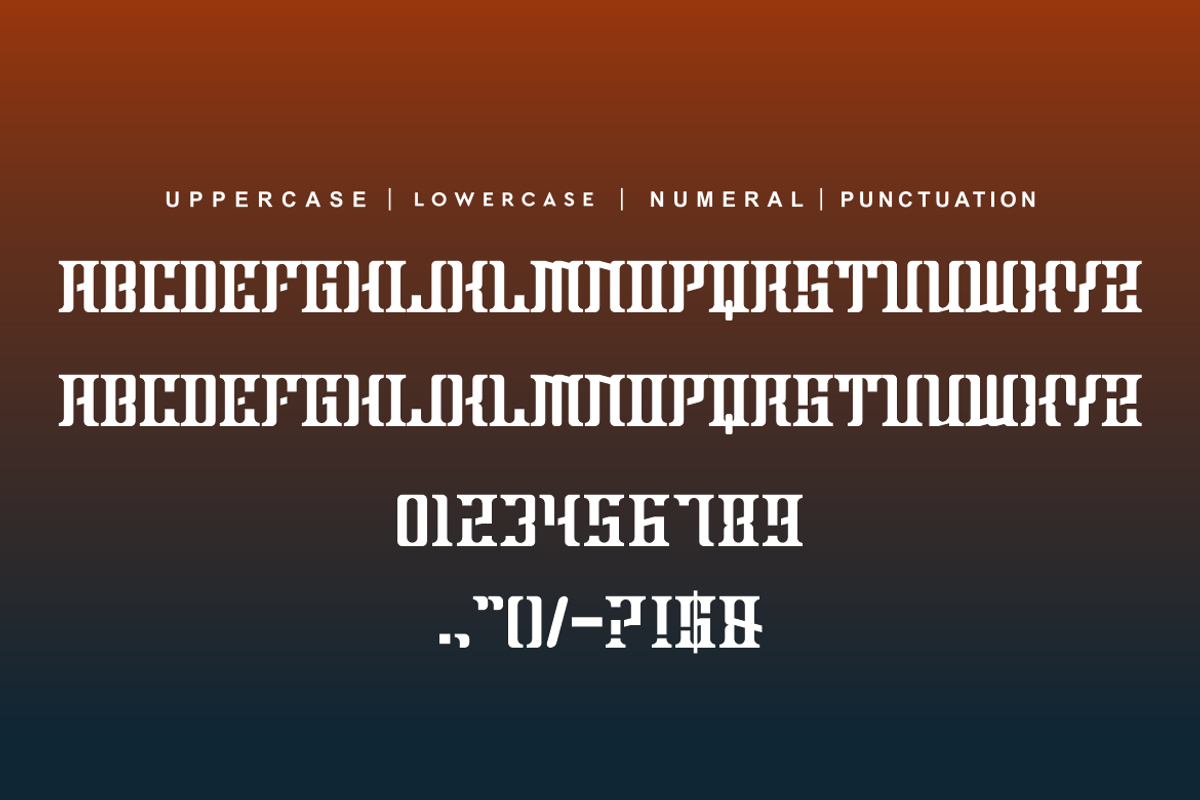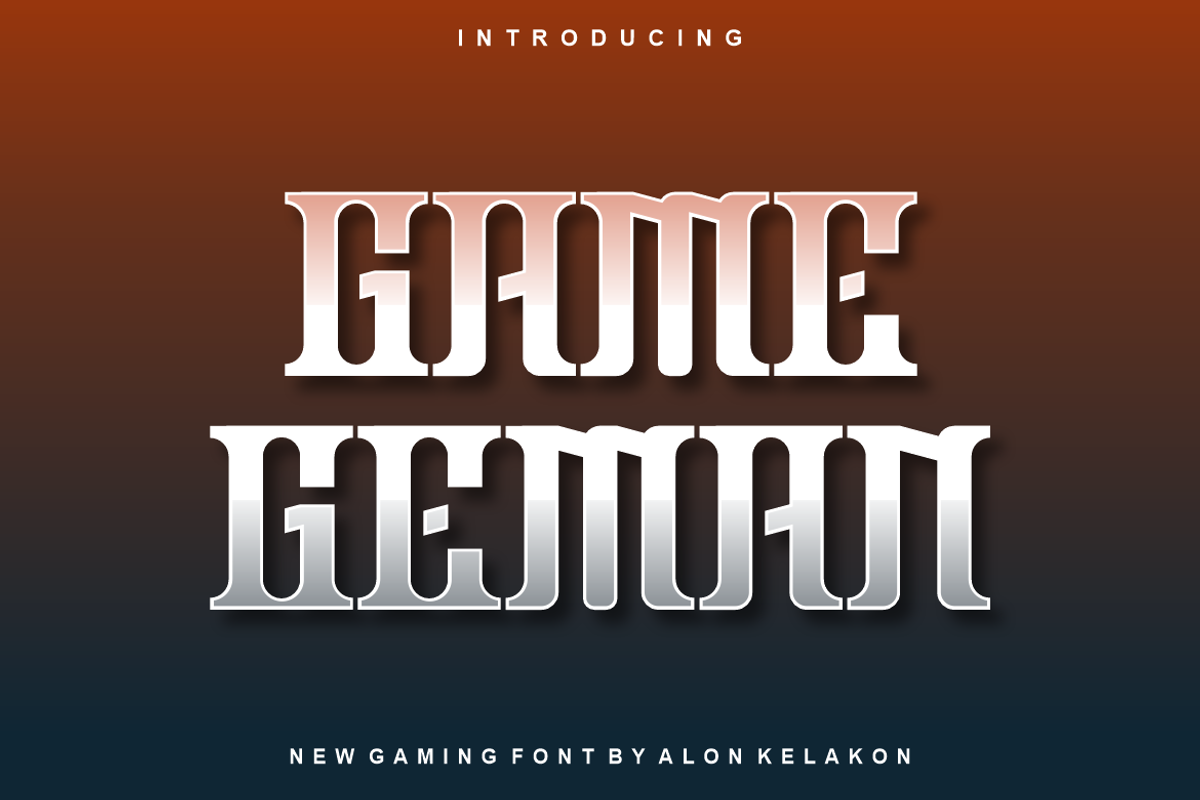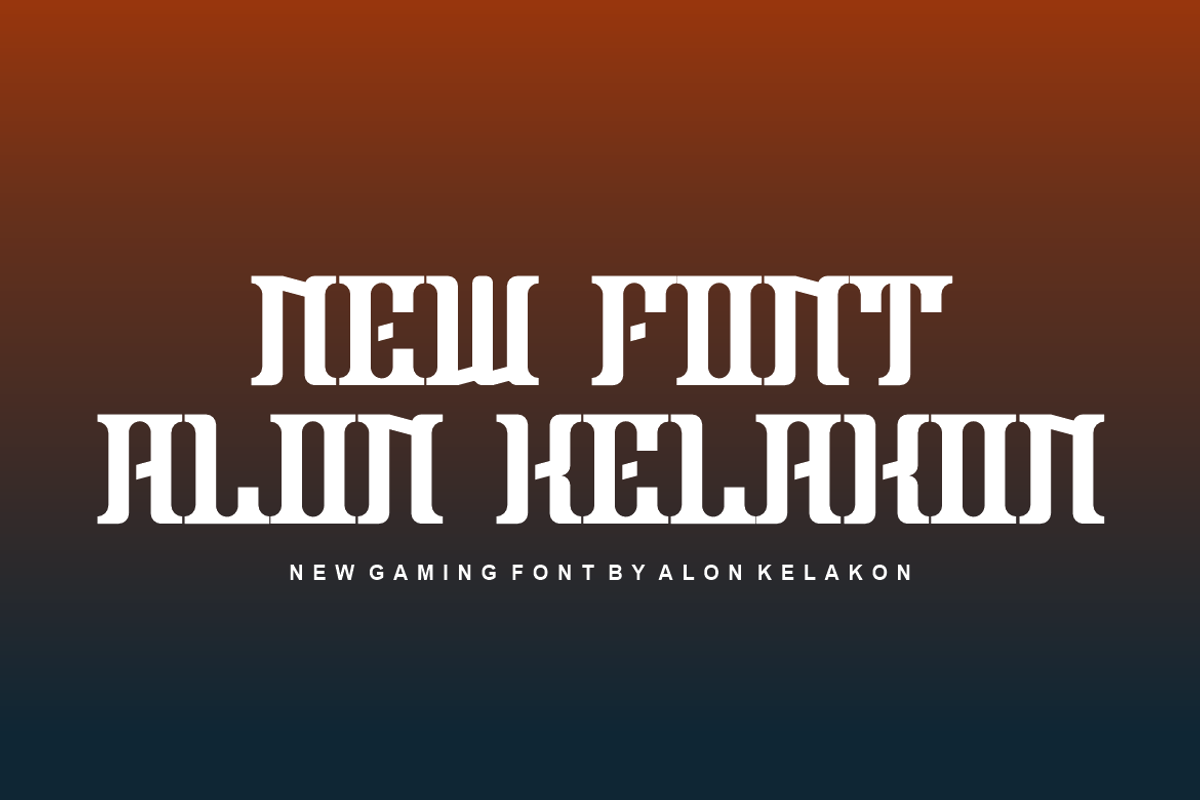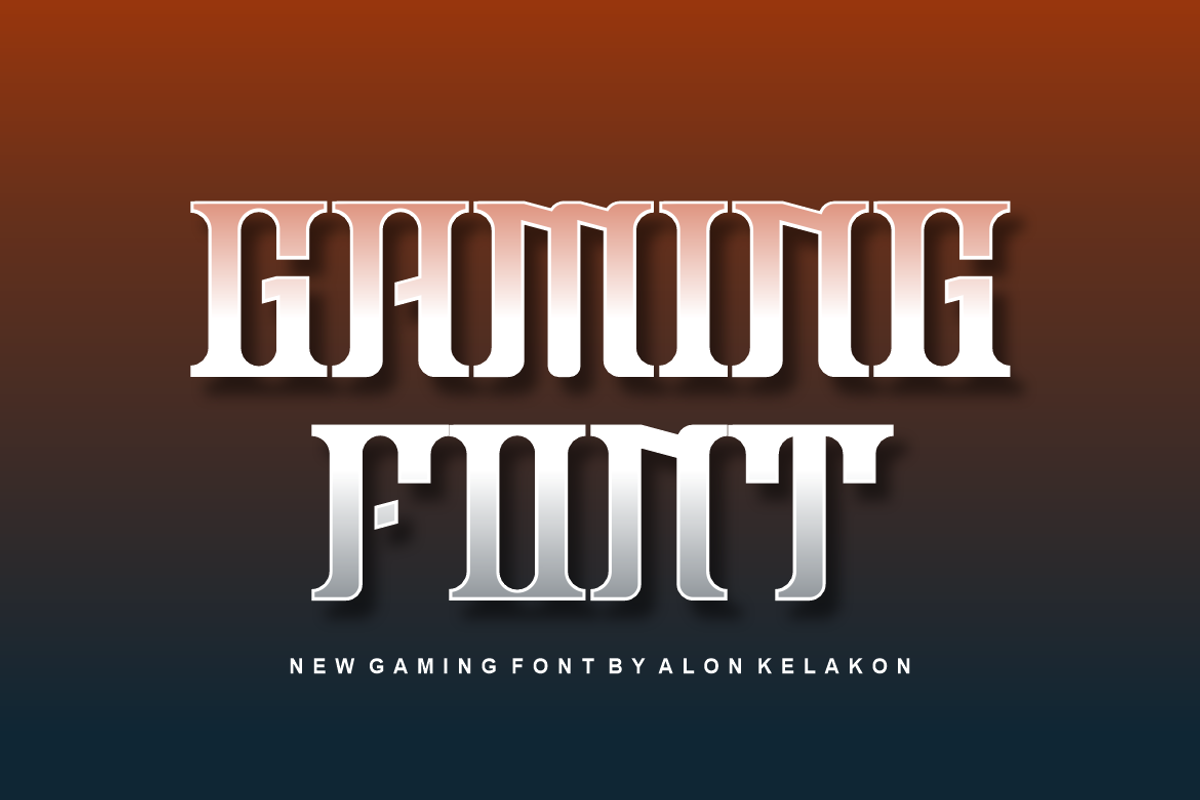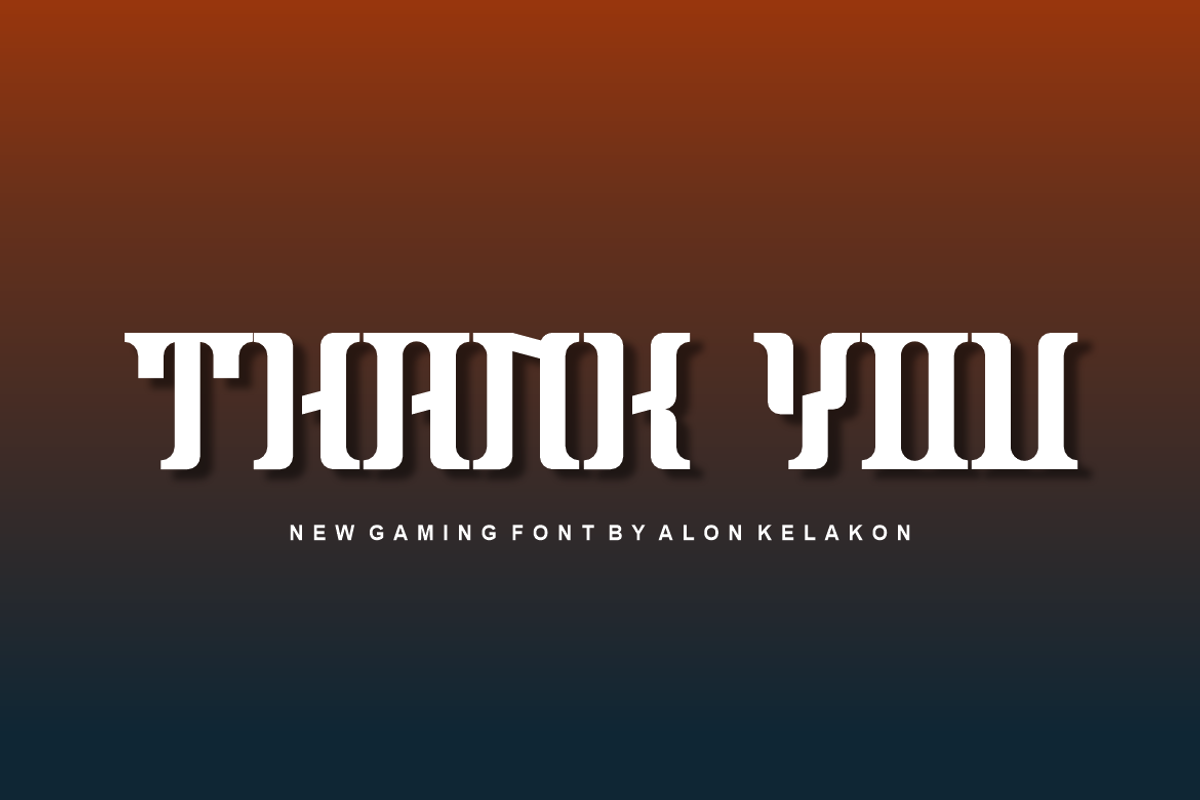
Game Geman Font
Game Geman Font Font is unique . Ready to use for your design like labeling, clothing, movie sceen, poster, movie title, gigs, album covers, logos, and much more.